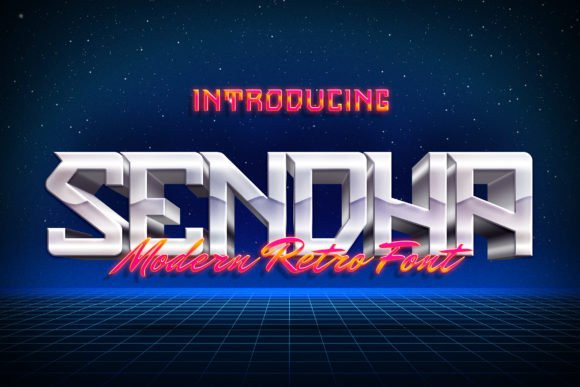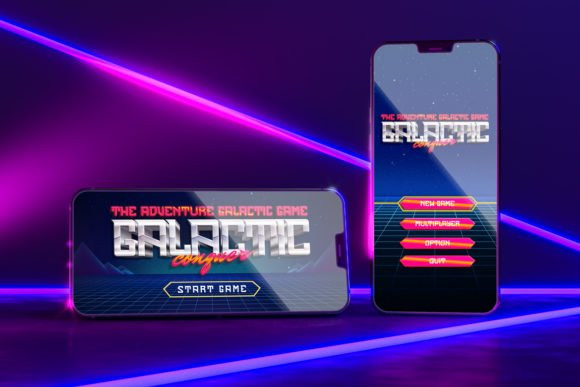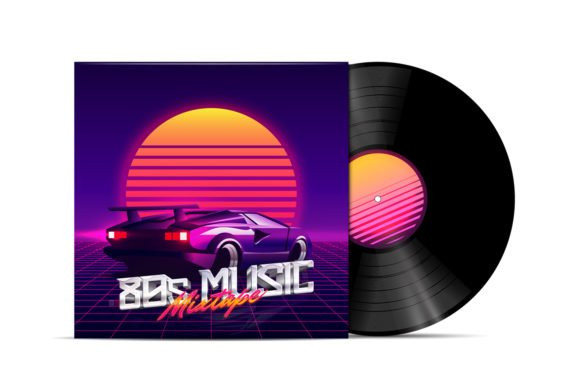
Sendha Font
Sendha is a bold, techno and ideal for your sci fi projects display font. It is suitable for any branding, product packaging, invitation, quote, t-shirt, label, poster, logo that you wish to develop.